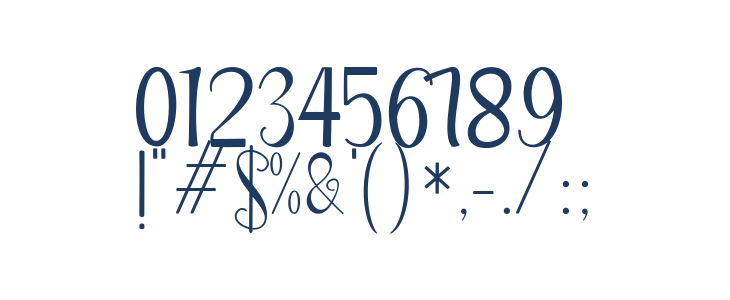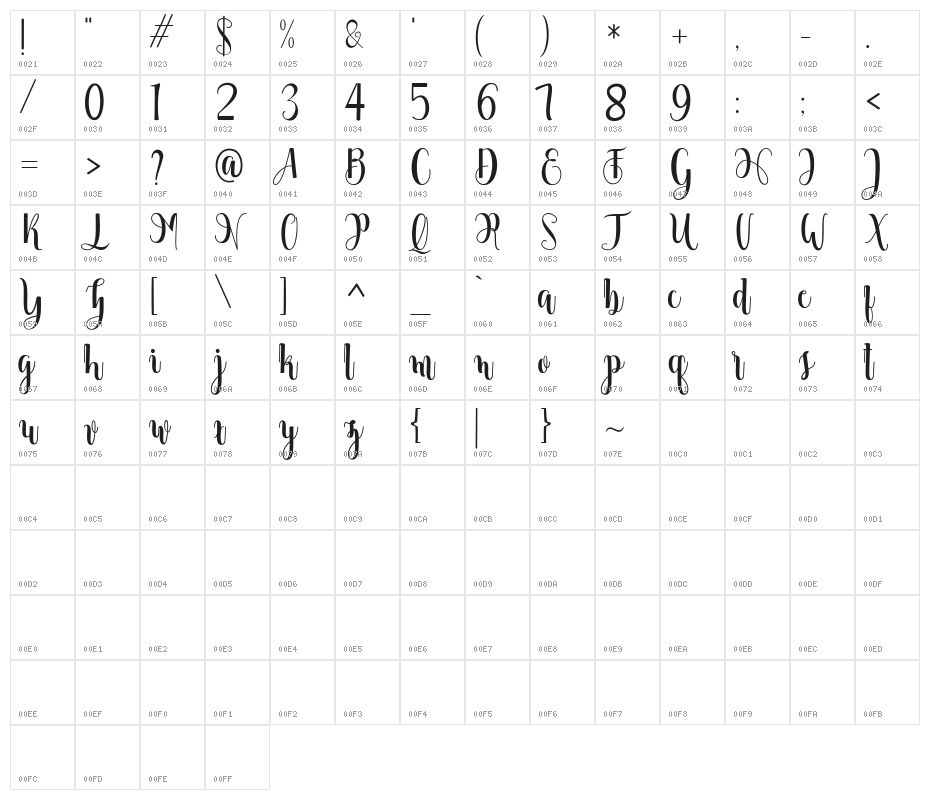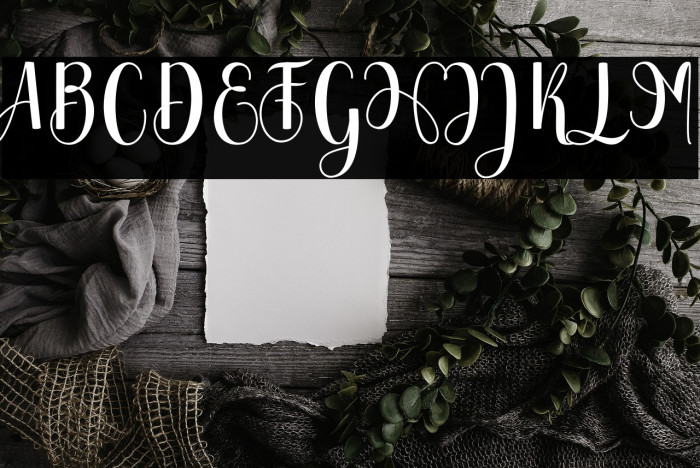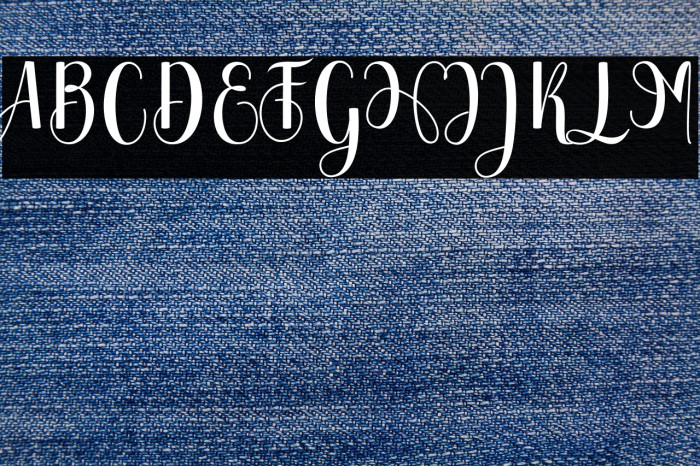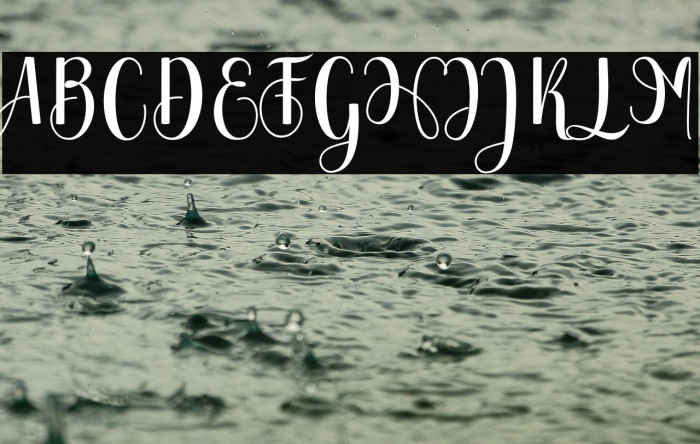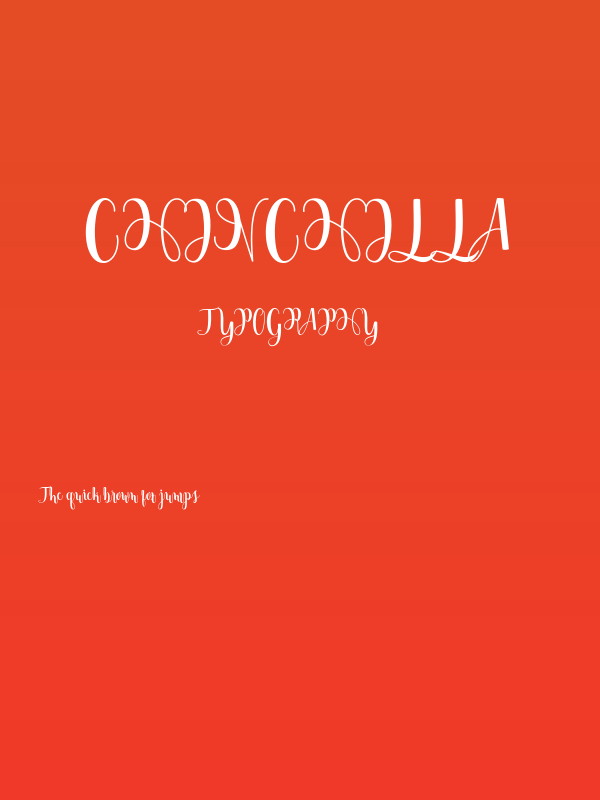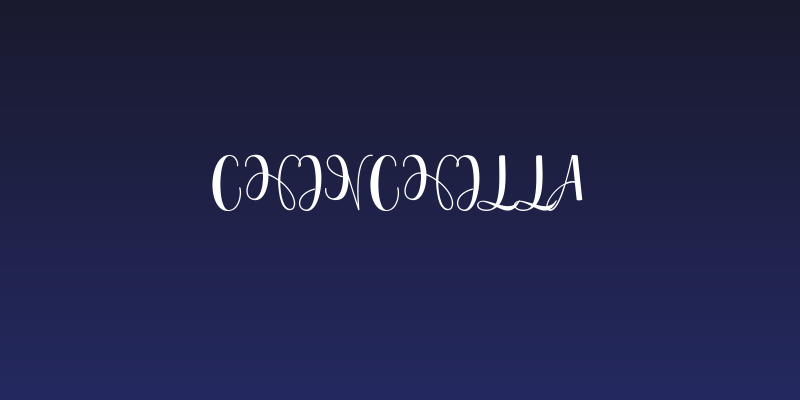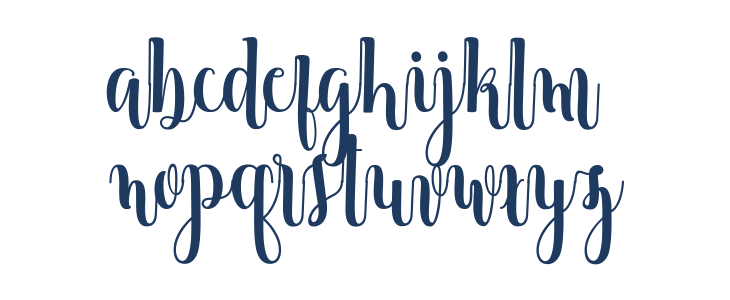
Chinchilla Font
Chinchilla Description
This font features a playful and elegant script style with a modern twist. The uppercase letters are characterized by their flowing, interconnected loops and swirls, giving them a whimsical yet sophisticated appearance. The lowercase letters maintain a consistent style with smooth curves and a slightly more compact form, enhancing readability while retaining the decorative flair. The numerals are distinct and maintain the font's overall aesthetic with their curvy and artistic design. Special characters are creatively integrated, ensuring they complement the font's unique style. This font is perfect for projects that require a touch of elegance and creativity.